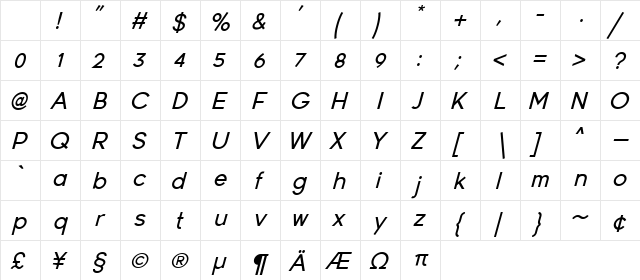
Young is a composed and adaptable typeface that performs quietly and consistently across a wide range of design contexts. The slanted form adds forward momentum and visual energy.
Pro Tip: Use Young for emphasis, pull quotes, and subheadings where its slanted energy can add rhythm to the layout.